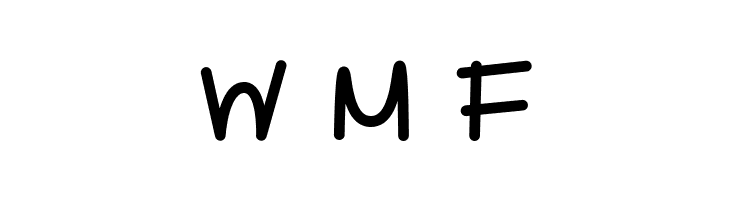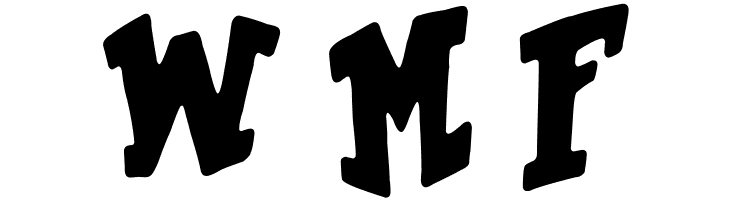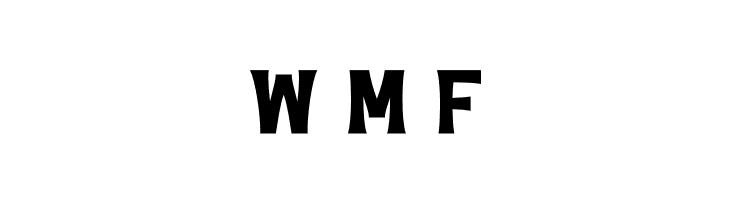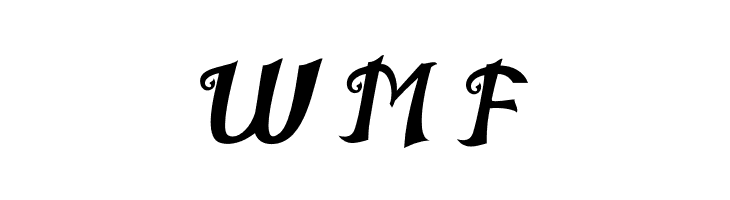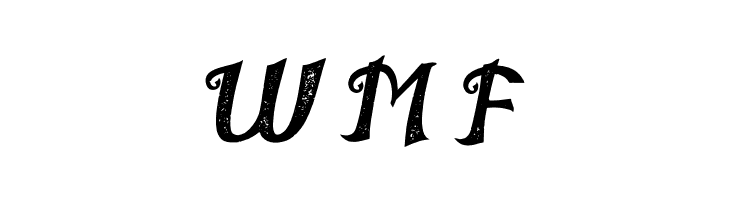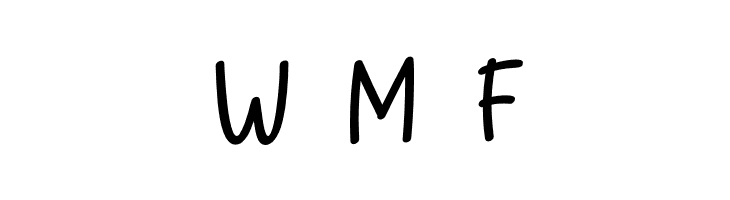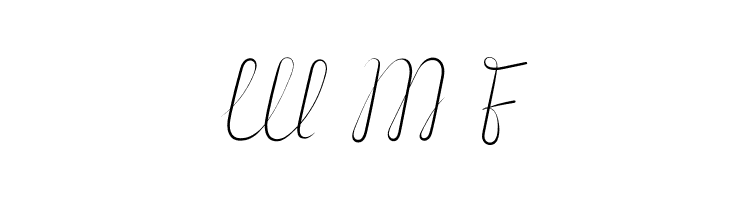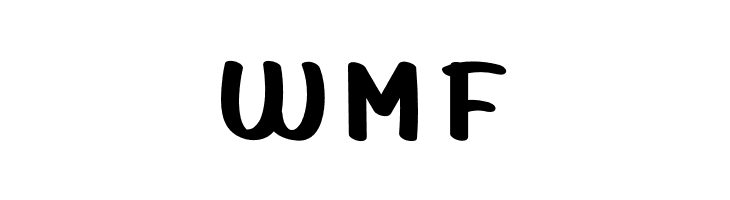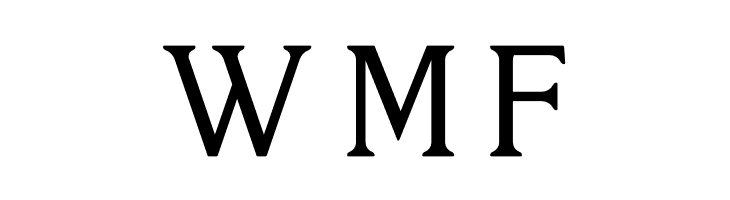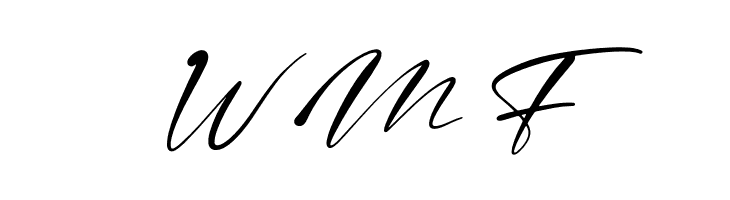
A dynamic, italicized handwritten font with a modern and playful style.
A playful, handwritten font with dynamic strokes and a casual feel.
A bold, flowing script font with a handwritten appearance.
A bold, italic script font with fluid, connected strokes and strong visual impact.
An elegant, high-contrast script font with ornate, flowing curves.
A dynamic handwritten font with fluid, expressive letterforms.
A classic serif font with elegant curves and strong presence.
A bold, handwritten font with fluid, connected strokes and a casual, energetic style.
A dynamic, handwritten-style font with bold, expressive strokes and a lively slant.
A lively, handwritten font with expressive, cursive strokes.
A dynamic, cursive script font with fluid, expressive strokes.
A bold, textured script font with a vintage yet modern appeal.
A bold, dynamic script font with dramatic flourishes and high contrast.
An elegant script font with flowing, interconnected characters and decorative swashes.
A bold decorative font with diverse crown and royal iconography.
A playful, bold, and hand-drawn font with rounded edges and high contrast.
A bold, playful font with a cartoonish, comic book style.
A bold, expressive script font with a playful handwritten style.
Bold, playful handwritten font with brush-like strokes.
A bold, flowing script font with elegant curves and high legibility.
A bold, handwritten font with expressive, dynamic strokes.
A bold, fragmented font with a chaotic and distressed appearance.
A playful and bold font with whimsical, irregular shapes.
A modern, elegant script font with flowing, connected characters and dynamic contrast.
A bold, playful font with rounded, hand-drawn characters.
A bold, condensed font with thick, uniform strokes for a strong visual impact.
A playful and elegant script font with interconnected strokes and bold numerals.
A bold, cursive handwritten font with elegant, connected letters.
A modern, sleek font with elongated, narrow characters and a stylish, minimalistic design.
A modern, geometric font with clean lines and a minimalistic style.
A lively handwritten font with fluid, connected strokes and varying thickness.
An elegant script font with flowing, cursive strokes and artistic flair.
A bold, brush-stroke font with an artistic and expressive style.